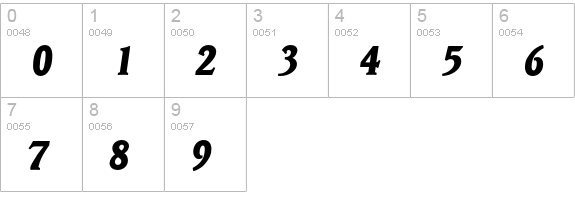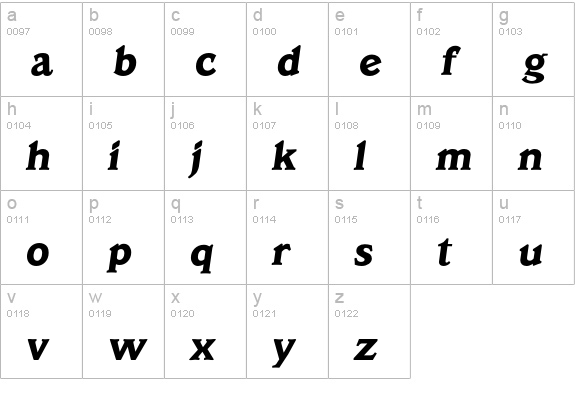
Veracruz-BoldIta font is a captivating and versatile typeface that exudes elegance and sophistication. Its bold and italicized design adds a touch of flair to any project, making it perfect for both professional and creative endeavors. This font features beautifully crafted letterforms with strong, confident strokes that command attention. Its unique combination of boldness and italics creates a sense of dynamism, allowing your text to stand out and leave a lasting impression. Veracruz-BoldIta font is ideal for a wide range of design applications. Whether you're designing a logo, creating an eye-catching poster, or crafting a stunning website, this font will elevate your work to new heights. What makes Veracruz-BoldIta font even more appealing is that it is freely available to download at FontsMarket.com. This means that you can enjoy the beauty and power of this font without any cost. It's a fantastic opportunity for designers, students, and anyone who appreciates high-quality typography. With Veracruz-BoldIta font, you have the freedom to unleash your creativity and make a statement with your designs. Its bold and italicized style, coupled with its free availability, makes it a must-have font in your collection. So why wait? Visit FontsMarket.com today and download Veracruz-BoldIta font to add a touch of elegance and sophistication to your next project.